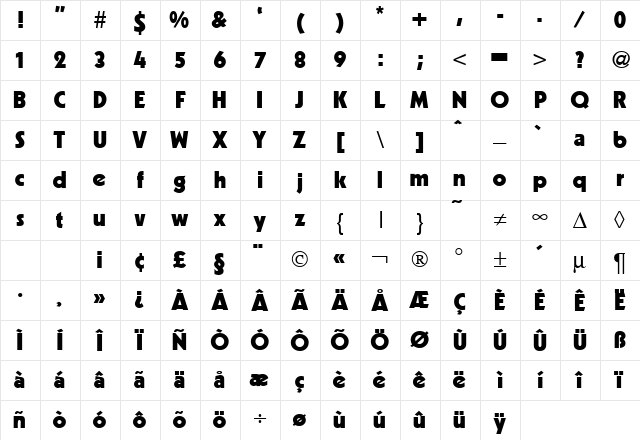
KochOriginalHeavy Regular
Design Context for KochOriginalHeavy
KochOriginalHeavy is a composed and adaptable typeface that performs quietly and consistently across a wide range of design contexts.